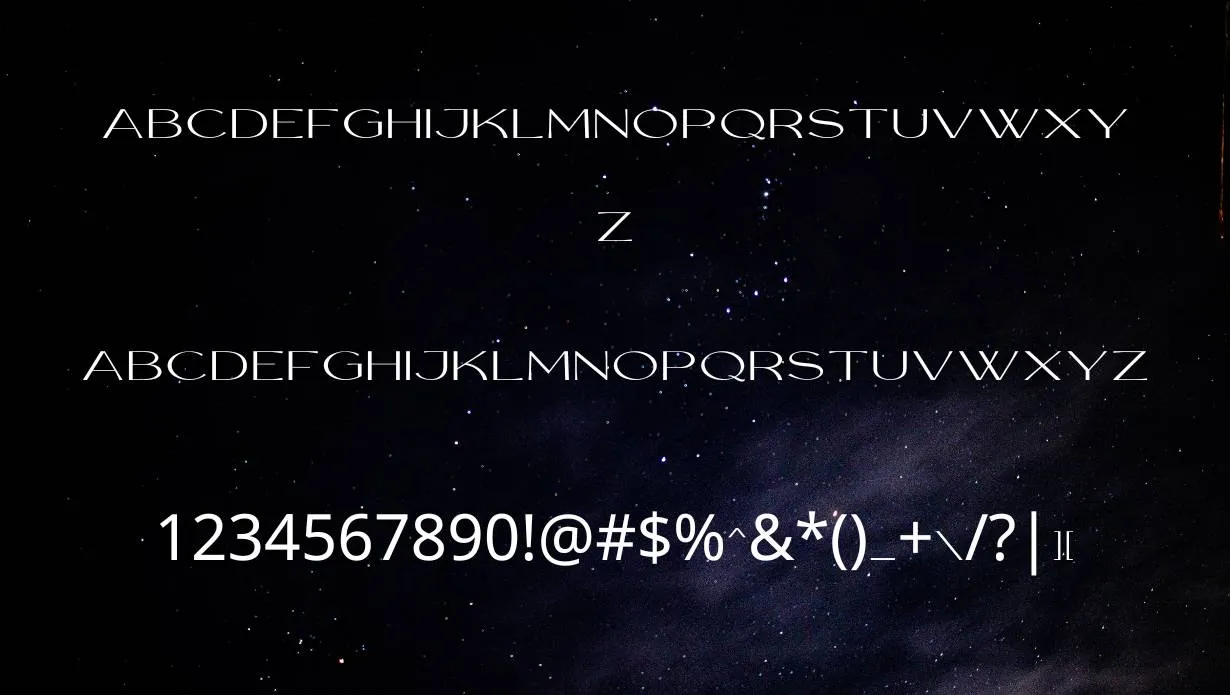
Rollgates Victoria Sans Font combines Victorian-inspired aesthetics with a contemporary twist. It’s perfect for creating a classic yet modern look in your designs.
If you want to infuse a sense of history and tradition into your work while maintaining a fresh and updated feel, this font is an excellent option.